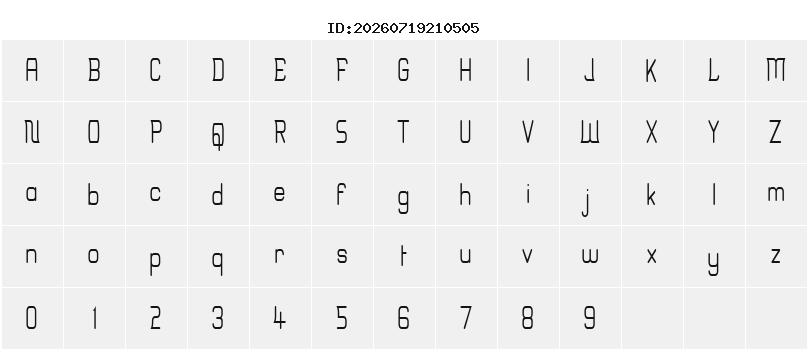
• Font Name: Erinal Narrow
• Designer: Graham Meade
Erinal Narrow.ttf is a modern, elegant sans-serif font designed for ultimate readability and visual harmony. Perfect for branding, headlines, web design, and print materials.